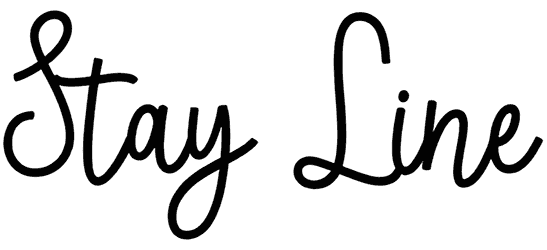
Stay Line Font
It’s not always easy to find a great font to use in a design, but RB is here to assist by providing a stylish and fantastic handwritten font. Designing something surprising is easy with the Stay Line font.
Its letters are casual and simple, which makes them a natural choice for showing trustworthiness and a warm, welcoming feeling. Such a versatile layout works great for certificates, hand-lettered signs, logos, posters, and more.